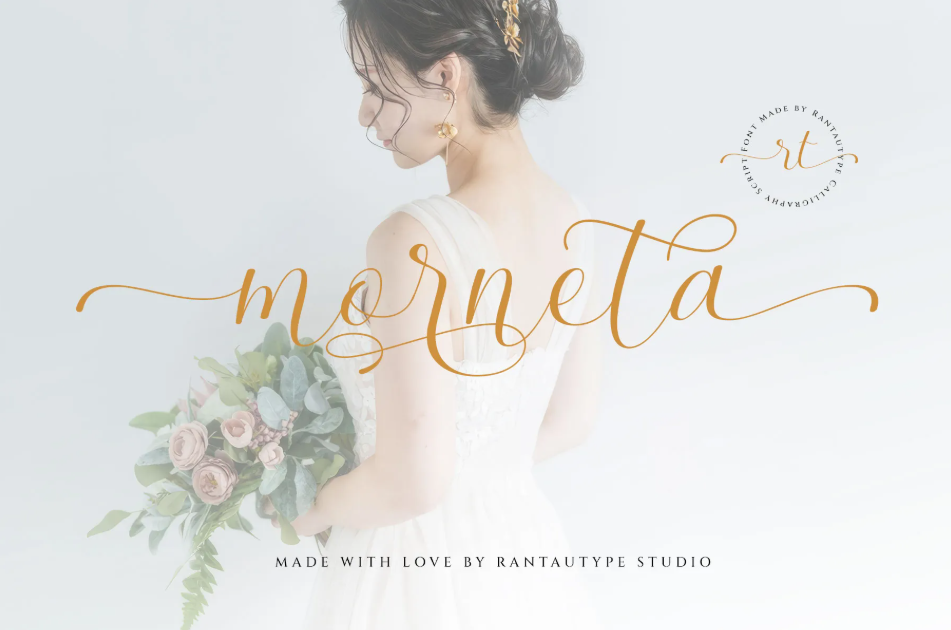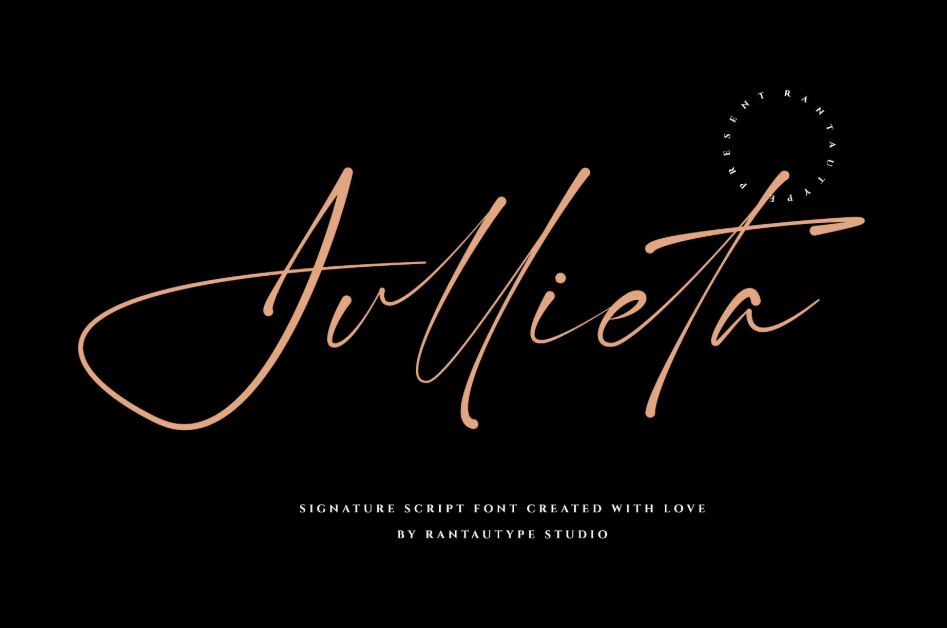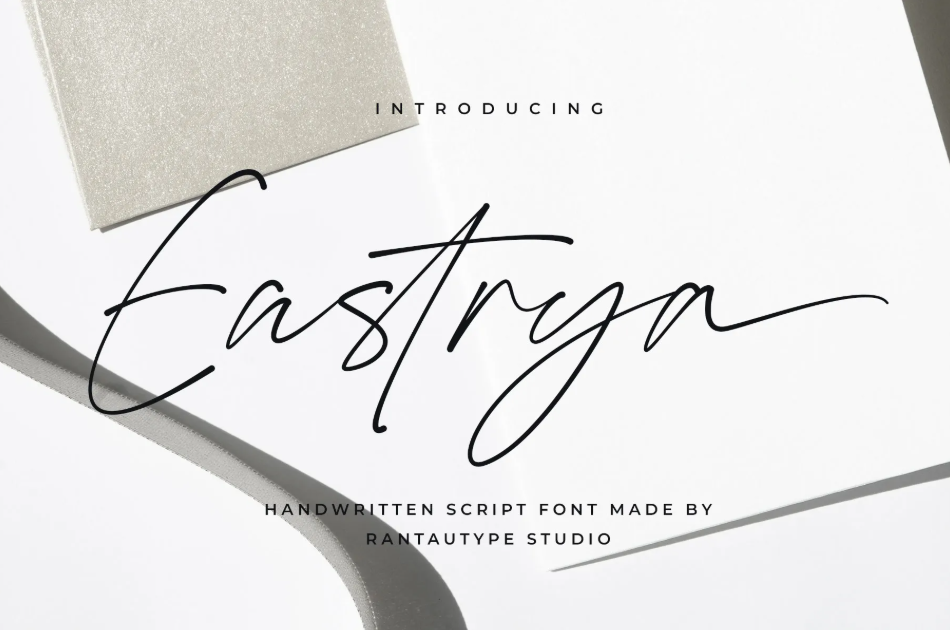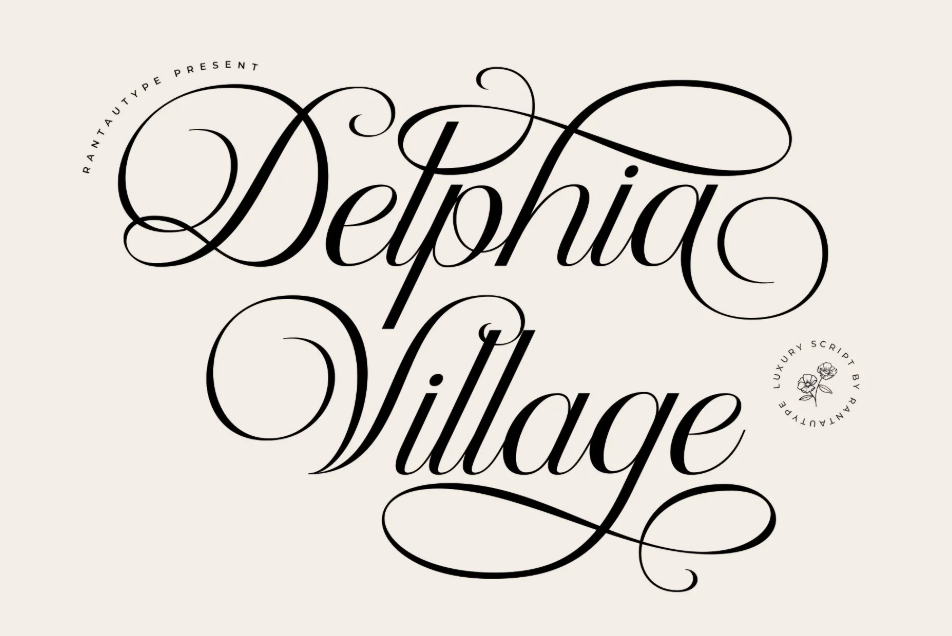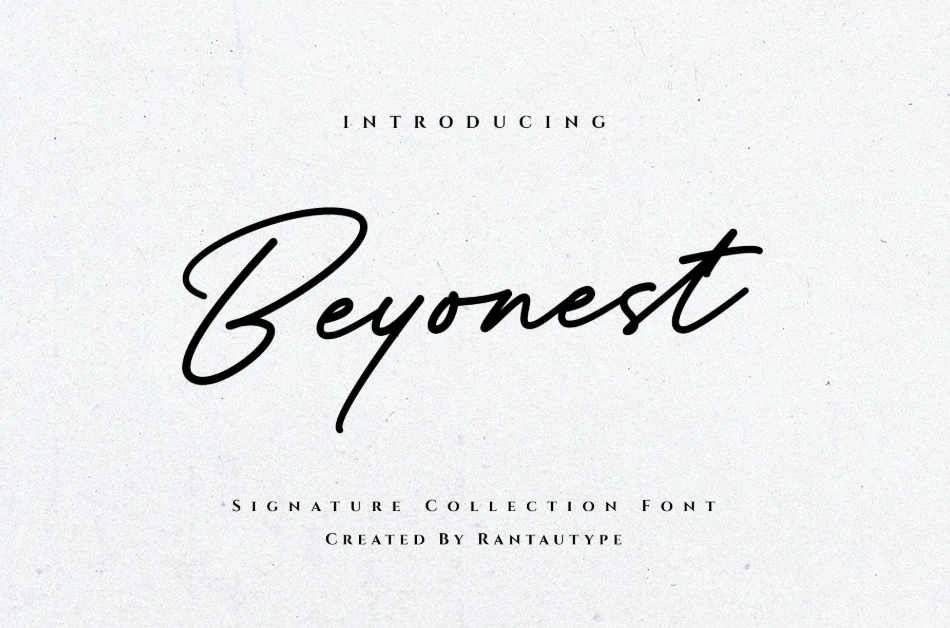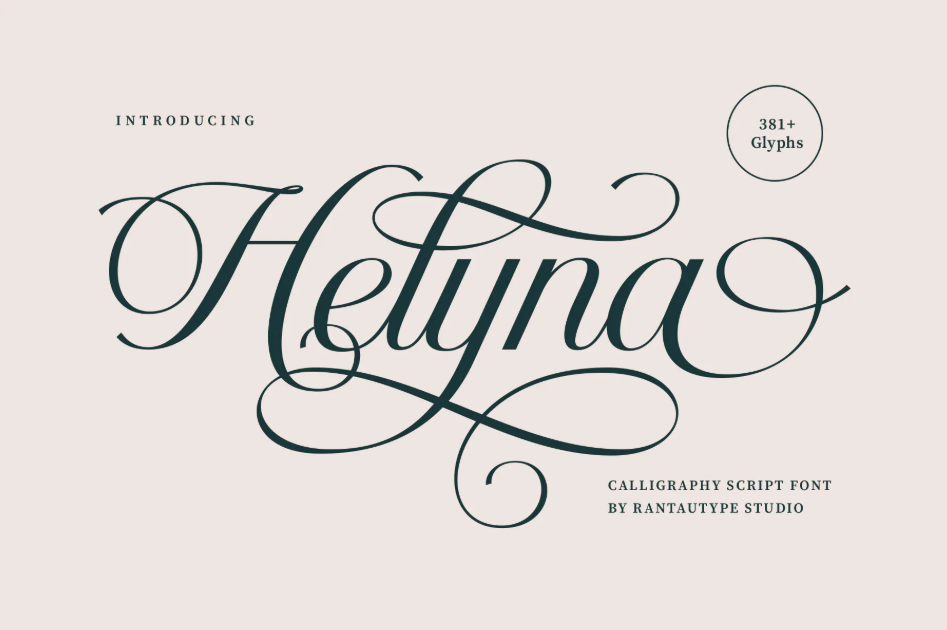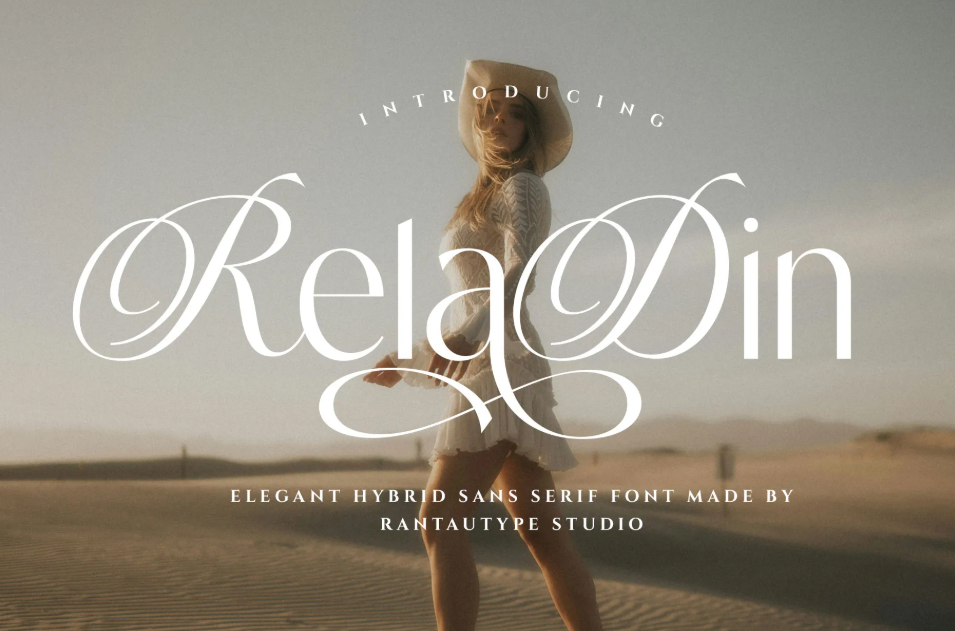
25 Romantic Fonts for Your Smooth Confessions
Romantic fonts rouse unspoken emotions through their depiction of smooth yet meticulous strokes; their natural flourishes and graceful curves also often strengthen personal and artistic touches to their appearances. Our fonts not only possess those premium qualities but striking flair for your out-of-the-ordinary designs.
Key takeaway:
• Romantic fonts speak your romance with realistic hand-drawn strokes.
• Each of the calligraphic flourishes of romantic fonts can represent your various intimate feelings differently.
25 Romantic Cursive Fonts​ to Romanticize Your Romance
According to Redpath, typography contributes to evoking various romantic emotions, either the burning passion of new love or the eternal devotion of a marriage. Below is a well-sorted list of impactful fonts to express your strong feelings and succeed in your journey of romance.
1. Haimonty Modern Script Font
Haimonty parades the sweet closeness between two families during the holy matrimony through the font’s casual and slanted letter shapes.
2. Eastrya Handwritten Script Font
Eastrya demonstrates the irreplaceable qualities of the best font for romantic letter through its slim and formal letter forms.
3. Ashegia Modern Serif Font
Out-of-this-world yet captivating ligatures, with thin connecting strokes, and sultry swashes adorn Ashegia for inviting tones on your designs.
4. Madreya Combination Serif Font
Madreya declares femininity and passion through its thoughtfully crafted flourishes and mesmerising contrast.
5. Reladin Elegant Hybrid Sans Font
Reladin steals the public’s attention through its stylish o-shaped and infinite-symbol swashes, with balanced thickness.
6. Aricena Elegant Serif Font
Aricena surprises your loved one with your immense adoration that is illustrated through the font’s unrivalled letter shapes and thinly-carved decorations.
7. San Brainy Handwritten Script Font
San Brainy maintains its current status as one of the intelligent-looking romantic fonts that gives the aura of the great Shakespeare.
8. Hastheya Chic Stylish Signature Font
Hastheya flatters with its exceptional and interconnected strokes. Deliver your heartfelt message to your loved one with the font’s high-fashion swashes.
9. Hondesia Vintage Bold Script Font
Hondesia leaves your significant other in awe with its daring and passionate boldness. Use the impressive font to seize your moment with its eye-catching swashes.
10. Morneta Calligraphy Script Font
Morneta mesmerizes the ones who lay eyes on the font through its gentle strokes and breathtaking contrasts, like witnessing a new bride walking down the aisle with her father towards her new life.
11. Harmony Adore Modern Script Font
Harmony transposes the mixed feelings of falling in love into neat yet expressive thickness and strokes, like the nerve-wracking moment of not knowing your crush’s feelings for you.
12. Heguita Modern Script Font
Heguita stirs your beloved’s heart with its floral aura and steady thickness. Do not forget to include these petal-like letter shapes on your wedding invitations.
13. Jasline Calligraphy Script Font
Jasline breathes alluring charm into your headlines through the font’s matchless alternates and well-thought contrast, like watching him get down on his knee and taking out a ring box that makes you gasp.
14. Jullieta Signature Script Font
Julietta conceals your nervousness when confessing to your vulnerability to your partner through the font’s refined aura and liquid strokes.
15. Raphiola Modern Casual Script Font
Raphiola characterizes romantic fonts with the font’s fashionable letter forms and oval-shaped flourishes. Use the light-hearted font to give reassurance to your loved one in words, like saying “I love you” before sleeping.
16. Antagon Brush Script Font
Antagon emphasizes the liberation you feel after getting things out of your chest through the font’s artistic letter forms.
17. Misellya Brush Script Font
Misellya portrays the harmonious relationship between opposite attraction through the font’s rough yet flowing strokes.
Do You Need Other Romantic Fonts?